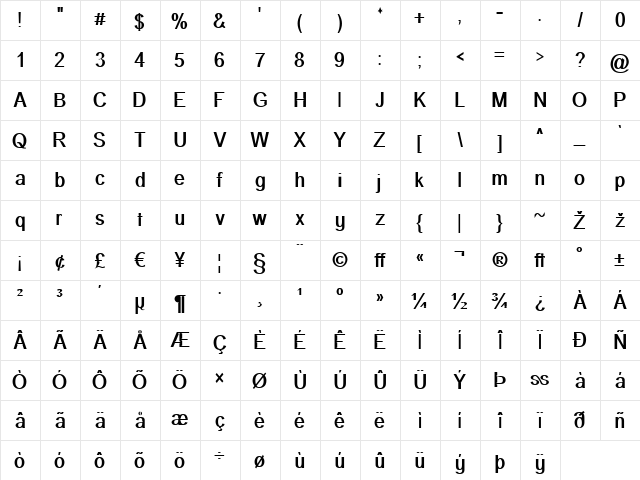
Primary Elector Regular
| Designer | Graham Meade |
Design Context for Primary Elector Typeface
Primary Elector offers clean, dependable letterforms without strong stylistic allegiance, making it a practical choice for designers who need flexibility.